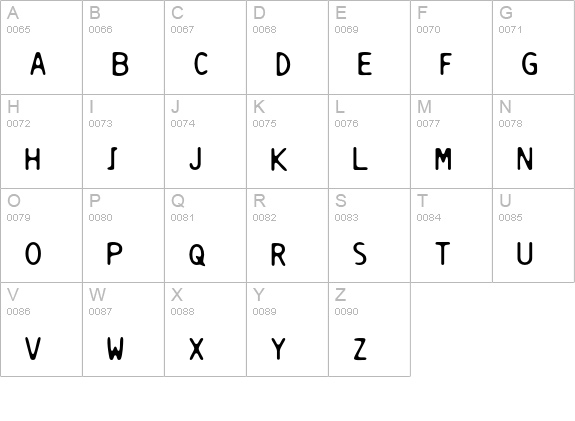
Resbaloso Font Details
Resbaloso font is a free typeface that exudes elegance and versatility. Its sleek and curvaceous lines are reminiscent of fluid movements, making it perfect for adding a touch of sophistication to any design project. Whether you're creating a logo, designing a website, or crafting a beautiful invitation, Resbaloso font will effortlessly elevate your work to new heights. With its wide range of weights and styles, Resbaloso font offers endless possibilities for creative expression. From bold and dramatic headlines to delicate and intricate text, this font adapts effortlessly to any design concept. Its clean and legible letterforms ensure optimal readability, even at smaller sizes. But what truly sets Resbaloso font apart is its accessibility. It is freely available to download at FontsMarket.com, making it a valuable resource for designers, students, and enthusiasts alike. Say goodbye to expensive font licenses and hello to endless creativity. With the Resbaloso font, the possibilities are truly limitless. Whether you're a seasoned designer or just starting out, Resbaloso font is the perfect addition to your font library. Its timeless beauty and versatility make it suitable for a wide range of design projects. So why wait? Download Resbaloso font today and let your creativity soar.